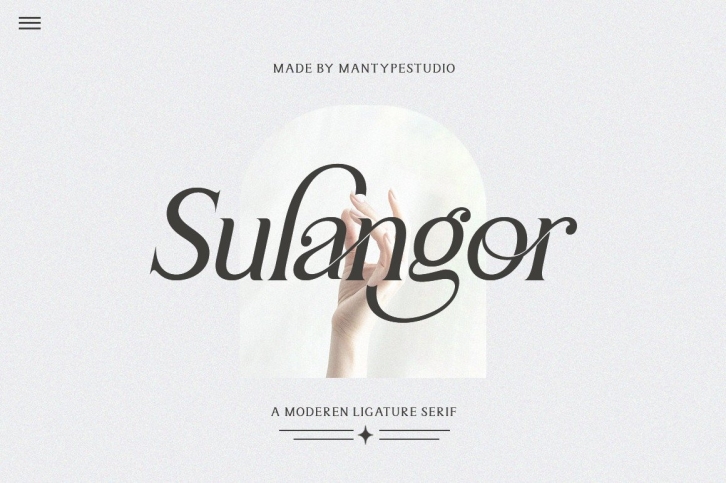
Sulangor is a stylish and rich serif font with letters that seem to dance and twist harmoniously together to form unique and elegant typography designs. Add it confidently to your projects and you will love the results!